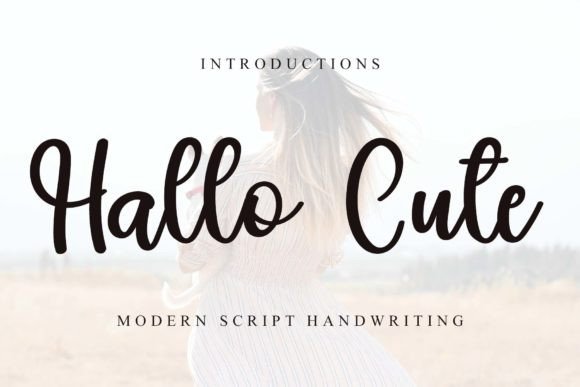
Dive into the world of artistic expression with Hallo Cute, the enchanting script font that will ignite your creativity and transform your designs into captivating masterpieces. Its delicate strokes and elegant flow will add a touch of sophistication and charm to any project, making it the perfect choice for those seeking a unique and timeless font.
Immerse yourself in the beauty of Hallo Cute's distinct style, meticulously crafted to evoke a sense of grace and elegance. Each letter dances across the page, carrying with it a story of creativity and imagination. Experience the joy of using a font that brings your vision to life, allowing your words and designs to speak volumes.
With Hallo Cute, you'll find endless possibilities to express your creativity. From eye-catching logos and branding materials to heartfelt invitations and personalized greeting cards, this font will elevate your designs to new heights. Its versatility knows no bounds, making it the perfect companion for any project that demands a touch of sophistication and charm.
Whether you're a seasoned designer or just starting your creative journey, Hallo Cute will guide you with its user-friendly nature. Its smooth curves and impeccable legibility ensure effortless application, allowing you to focus on expressing your ideas without technical hurdles.
Hallo Cute is more than just a font; it's an experience that will inspire you to create designs that resonate with your audience. Its delicate strokes and elegant flow will evoke emotions, captivating your readers and leaving a lasting impression.